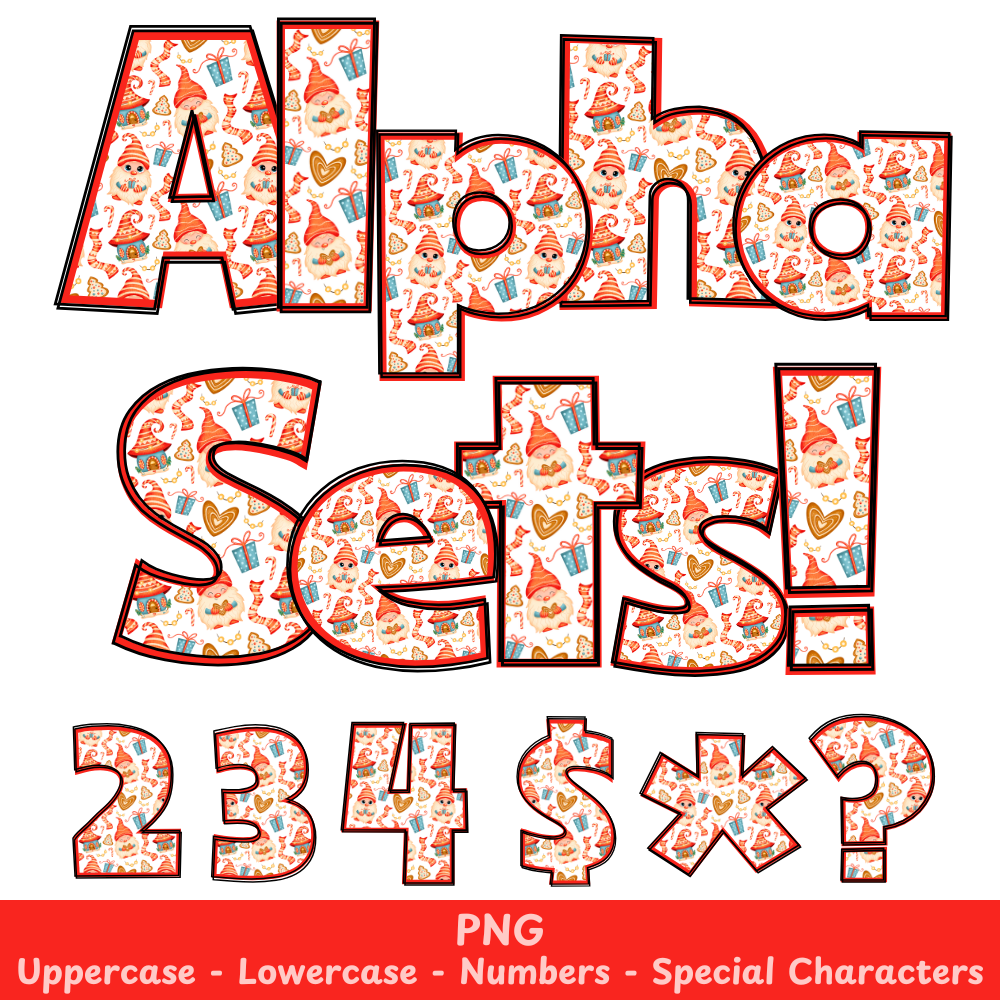
Orange Christmas Gnome PNG Font
Orange Christmas Gnome Alpha Set PNG Font Pack
Introducing the Orange Christmas Gnome PNG Font, a versatile tool for your crafting needs. With its festive design, this font is perfect for your Christmas projects such as sublimation and more. Get creative and make your designs standout with this fun and playful font.